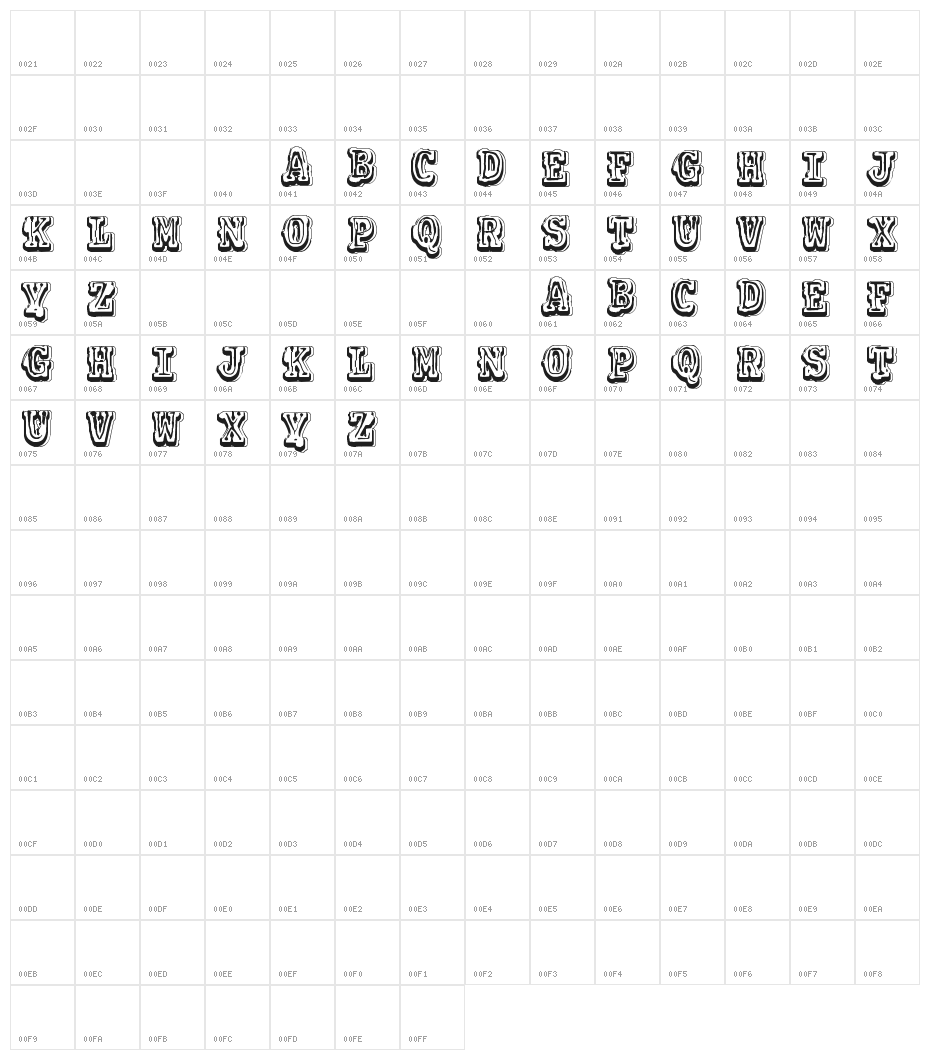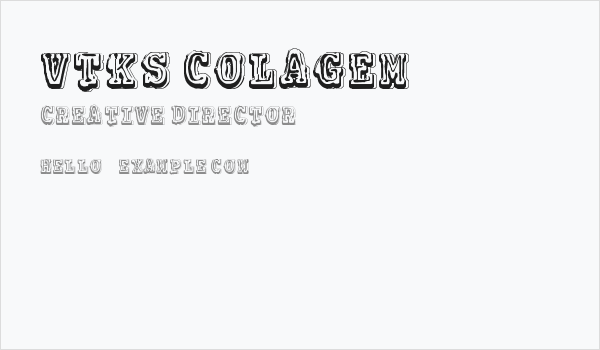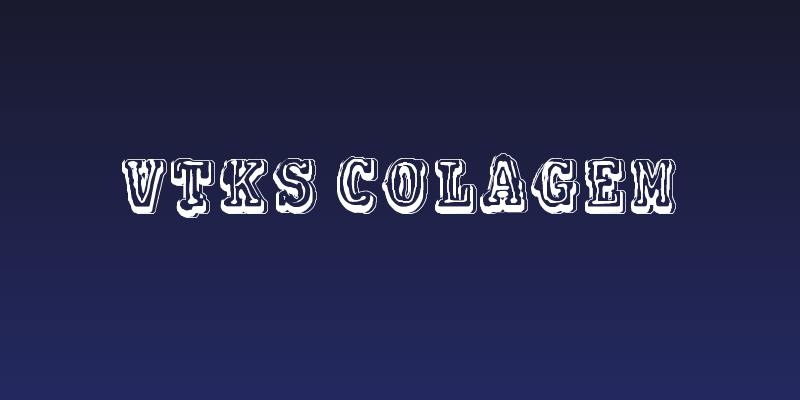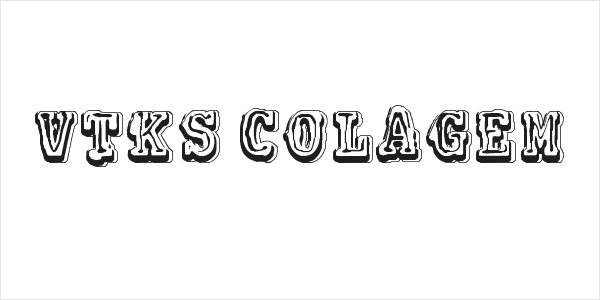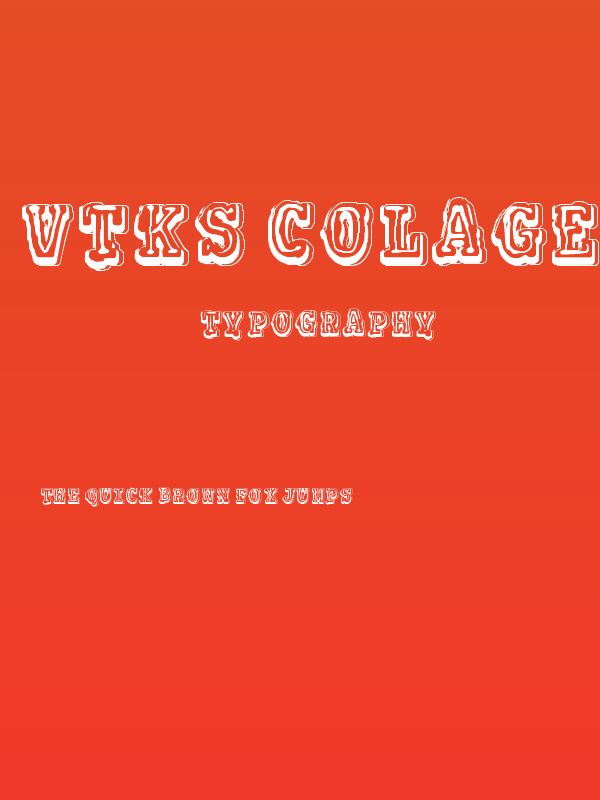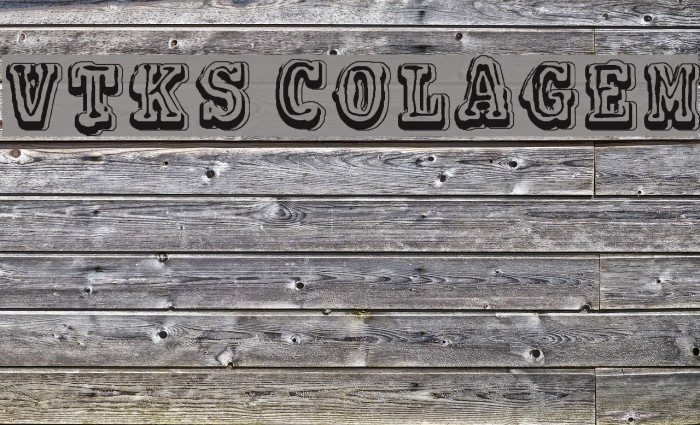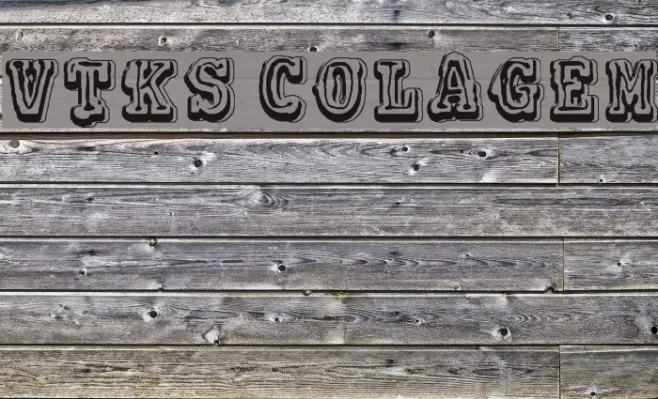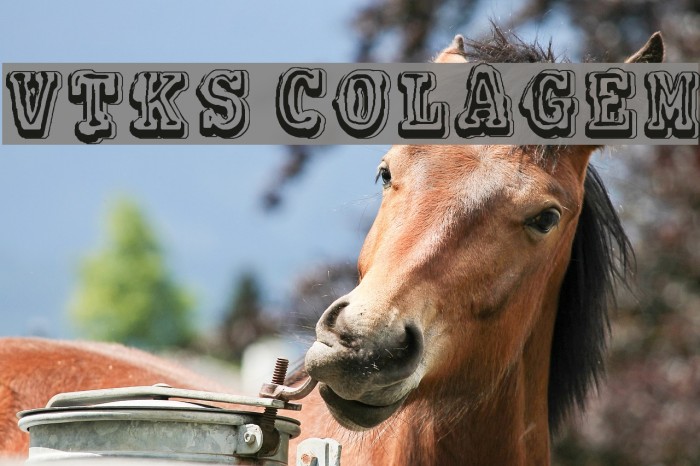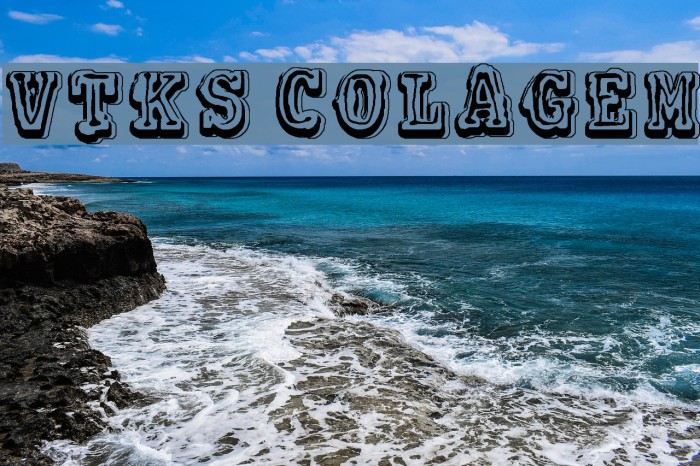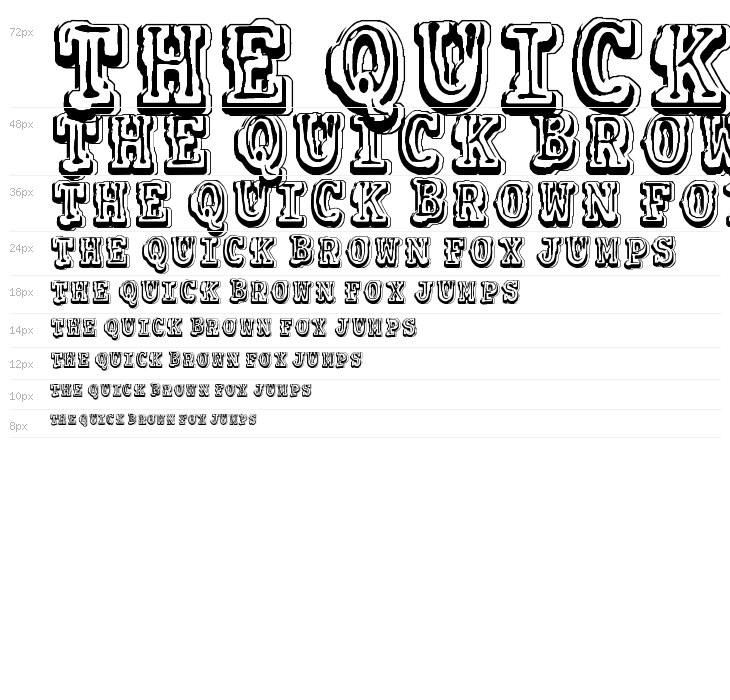
VTKS COLAGEM Font
VTKS COLAGEM Description
This font features a bold, decorative style with a distinct outline and shadow effect, creating a three-dimensional appearance. The uppercase letters are designed with a playful, artistic flair, making them stand out with their intricate detailing. The font's unique style is reminiscent of vintage poster typography, combining a sense of nostalgia with a modern twist. The characters are evenly spaced, ensuring readability while maintaining their decorative appeal. This font is ideal for projects that require a strong visual impact, such as posters, headlines, and branding materials. Its bold presence and artistic design make it suitable for creative and expressive applications.
| Overall Style | Vintage, Decorative |
| Proposed Projects | Ideal for posters, headlines, branding, and creative projects requiring strong visual impact. |